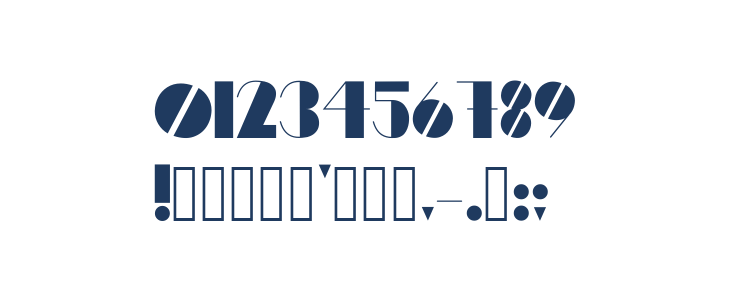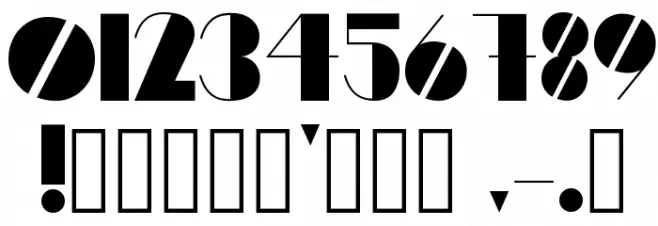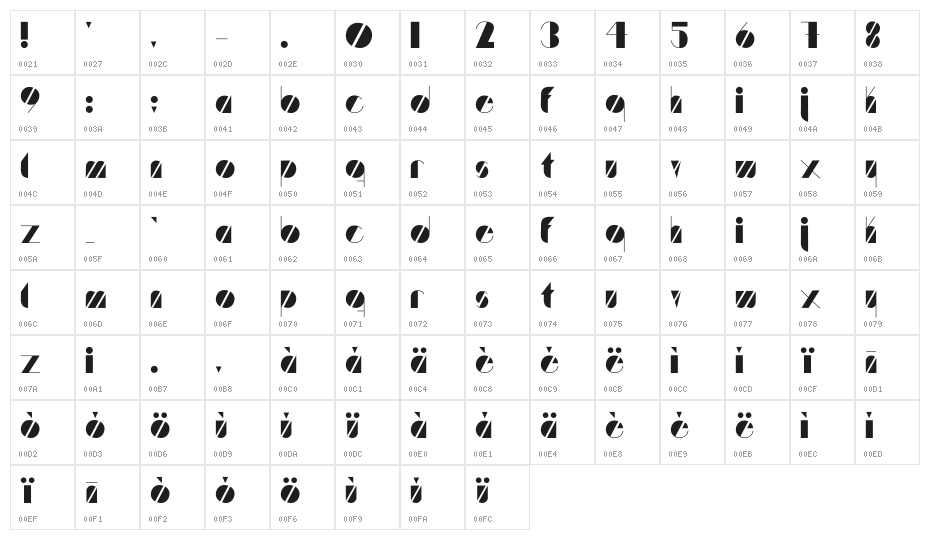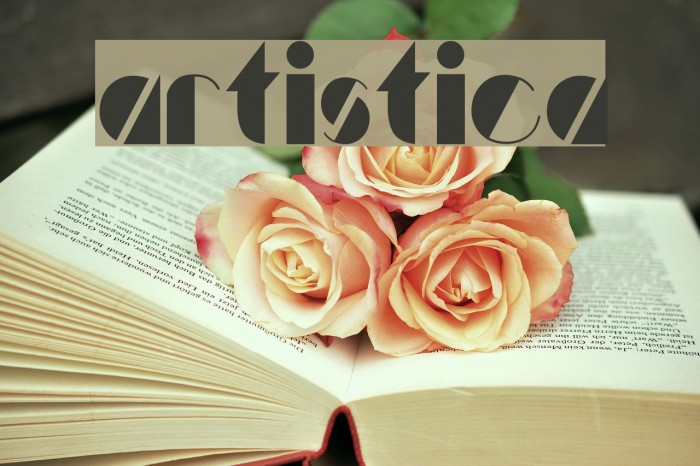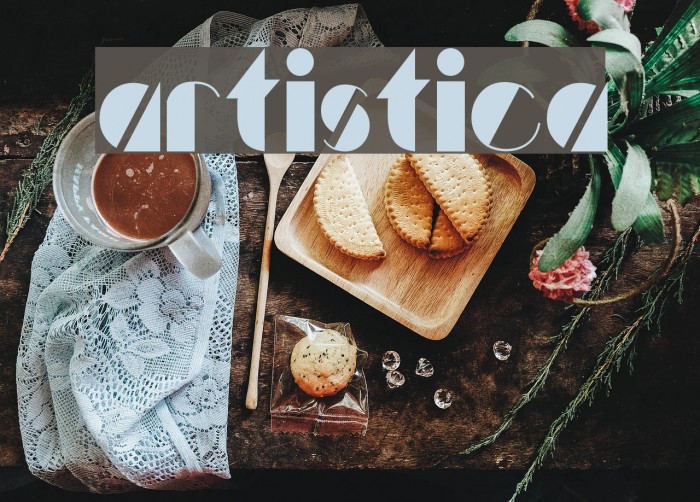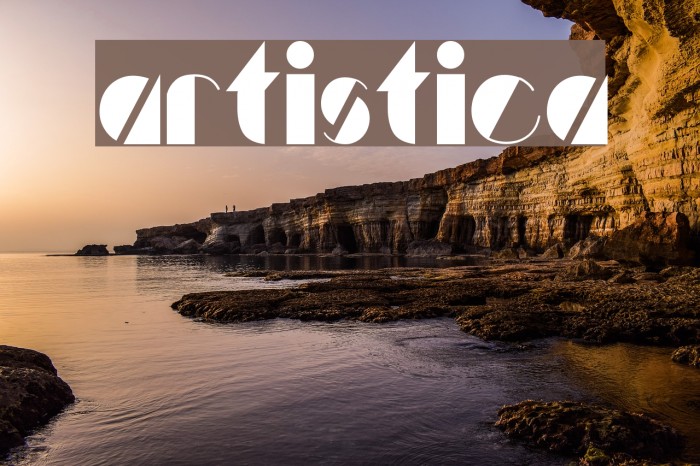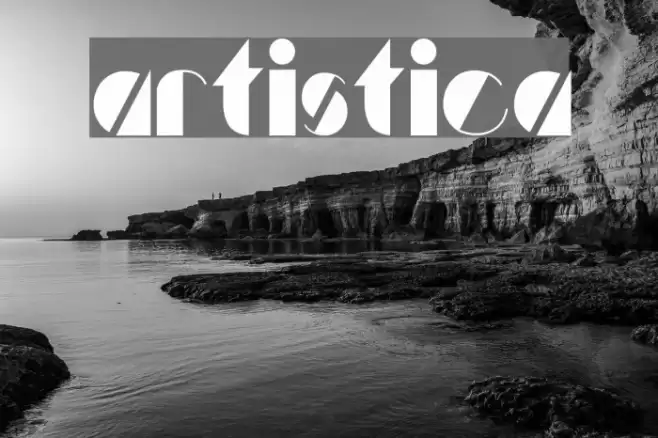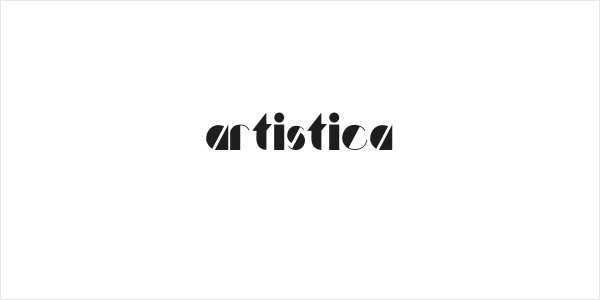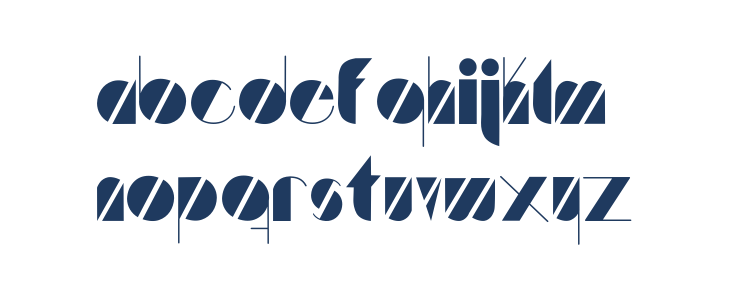
Artistica Font
Artistica Description
This font features a bold and geometric design, characterized by its sharp angles and clean lines. The letters are constructed with a combination of thick and thin strokes, creating a high contrast that adds a dynamic and modern feel. The uppercase and lowercase letters share a consistent style, with unique shapes that make each character stand out. The numbers and special characters follow the same geometric theme, ensuring a cohesive look across all elements. This font is ideal for making a strong visual impact, with its distinctive and artistic appearance.